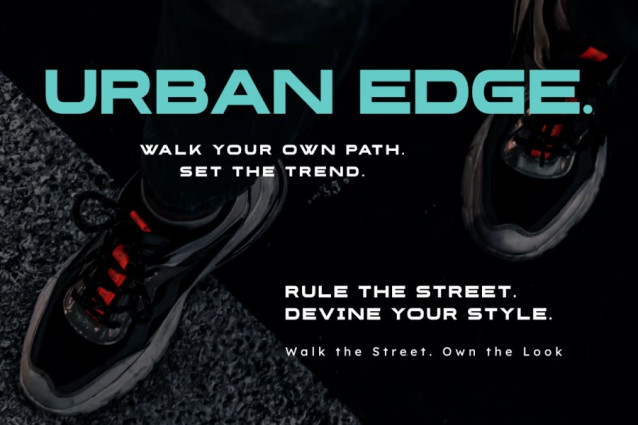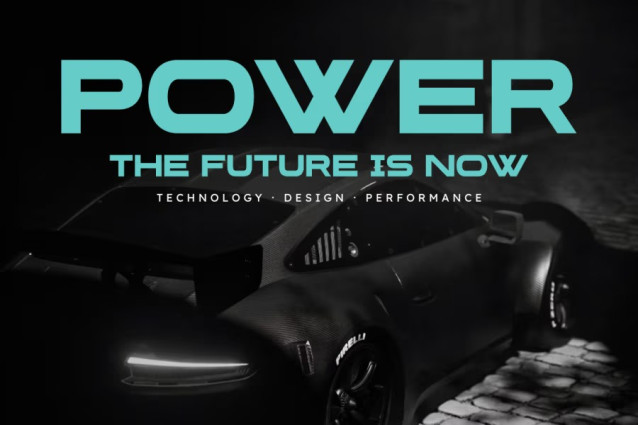
Mainard Font, perfectly fit for branding, logo, wedding things, greeting cards, fashion, lookbook, marketing promotion, anytime you want to look fancy elegant but still casual.
| Designer Name: | Letterayu & Masyafi Studio |